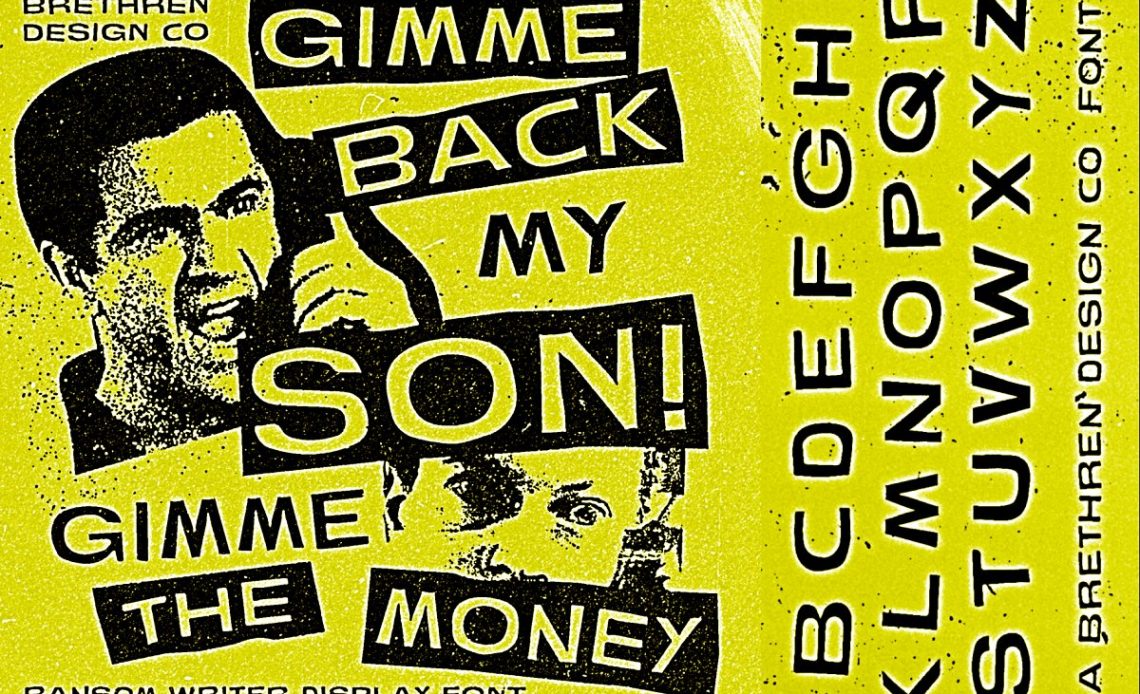
Introducing Ransom Writer Display Font, the best font for display boards! Created by Brethren Design, this wonky cut-out inspired font exudes a punk rock vibe that's perfect for creating a rebellious and edgy look.
With its unique and eye-catching design, Ransom Writer Display Font is perfect for designing flyers that will make your message stand out from the crowd. Its alt letters for uppercase and lowercase, numbers and punctuation provide endless possibilities for customization, ensuring that your design will be truly unique.
Ransom Writer Display Font is not just a font, it's a statement. It's a font for those who want to break free from the mundane and create something rad. Whether you're designing a poster for a band or promoting a local event, Ransom Writer Display Font will make your message pop.